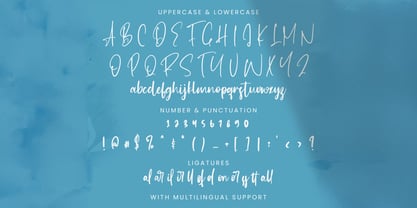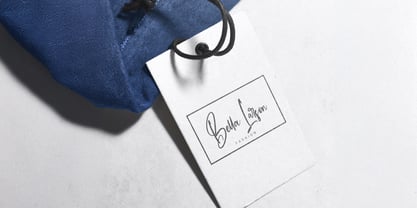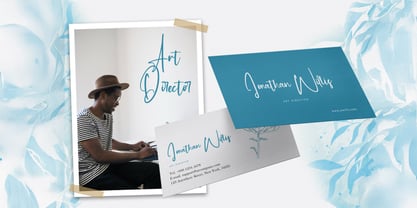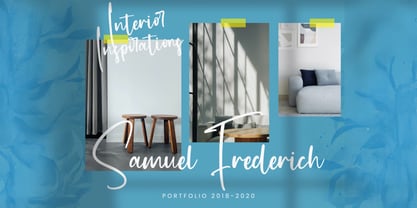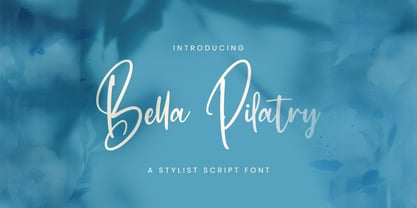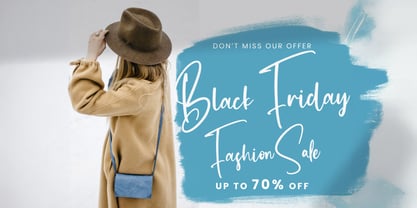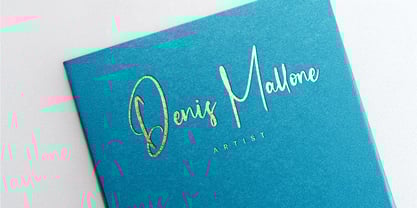
Bella Pilatry
by Stringlabs Creative Studio
The Bella Pilatry Font Family was designed by Virgiawan Listanto and published by Stringlabs Creative Studio. Bella Pilatry contains 1 styles. More about this family
Bella Pilatry is a delicate and elegant handwritten font, featuring flowing lines and well-balanced characters. Its versatile design makes it perfect for adding a touch of grace to any project, from invitations and branding to social media graphics and more.
Designers: Virgiawan Listanto
Foundry: Stringlabs Creative Studio